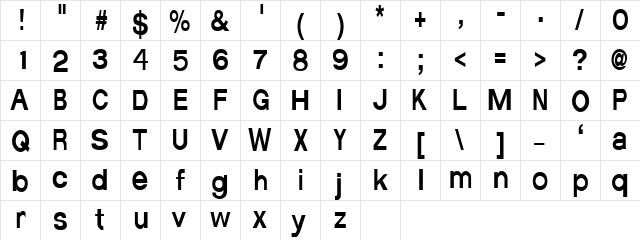
AverageCondensed Regular Font Preview
AverageCondensed Regular
AverageCondensed Regular Font Details
Design Context for AverageCondensed Typeface
AverageCondensed is a composed and adaptable typeface that performs quietly and consistently across a wide range of design contexts. The condensed width makes it efficient for tight spaces without sacrificing legibility.